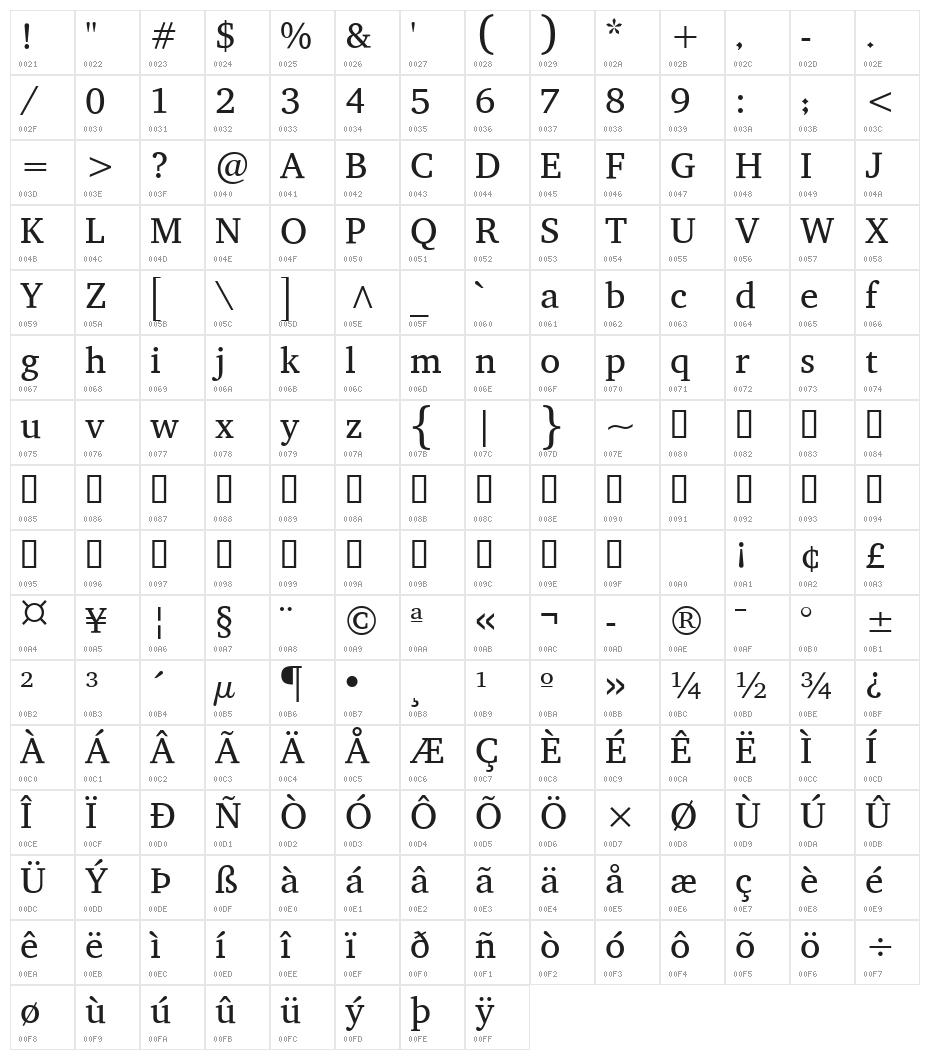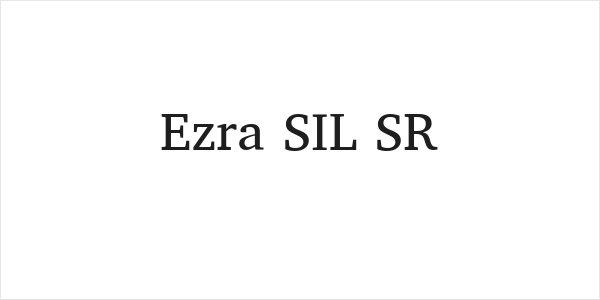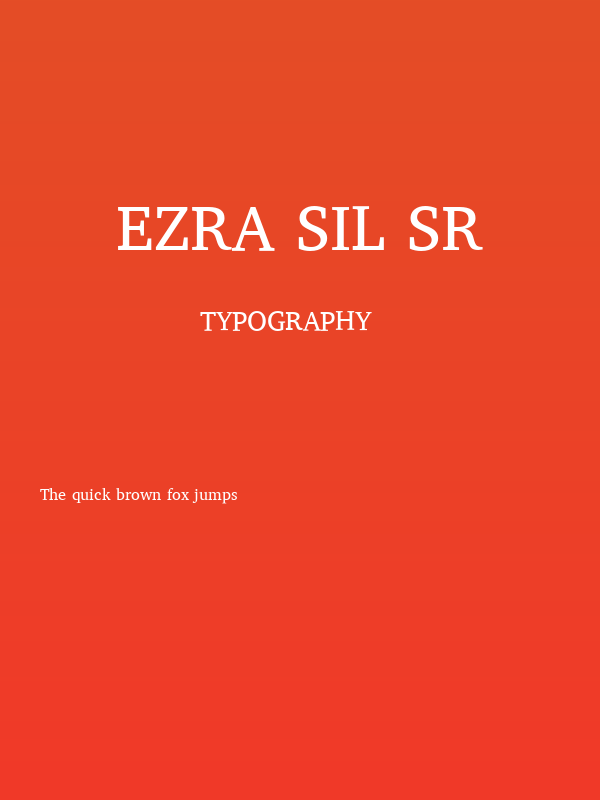
Ezra SIL SR Font
Ezra SIL SR Description
This font features a classic serif style with a strong presence and elegant curves. The uppercase letters are bold and commanding, while the lowercase letters maintain a consistent and harmonious flow. The numerals are clear and easy to read, making them suitable for various applications. The special characters are well-defined, adding versatility to the font. Overall, the design is balanced with moderate contrast in stroke thickness, giving it a timeless and professional appearance.
| Use Case | Body text, Editorial design |
| Proposed Projects | Ideal for book typesetting, formal invitations, and editorial design. |